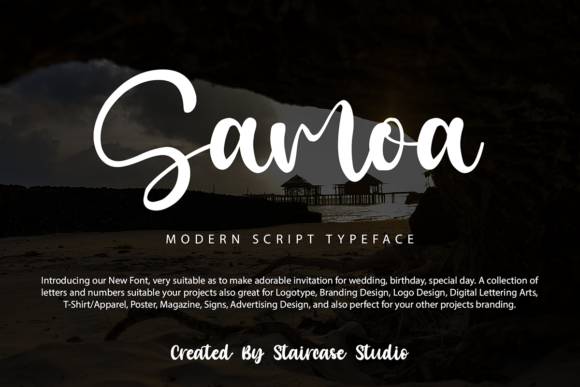
Embark on a modern script lettering journey with Samoa Font, an extraordinary typeface that breathes life into your creative projects. Say goodbye to ordinary fonts and embrace the captivating charm of Samoa, a script font that exudes sophistication and style. Crafted with meticulous attention to detail, Samoa Font features a mesmerizing collection of characters that dance and flow seamlessly, creating an enchanting visual experience.
Samoa Font is more than just a font; it's a gateway to unleashing your creative potential. Its versatile nature makes it the perfect companion for a diverse range of projects, from elegant logotypes that leave a lasting impression to branding materials that speak volumes about your brand's identity. Whether you're designing eye-catching posters, captivating magazines, or stunning signs, Samoa Font rises to the occasion, delivering remarkable results.
Step into the world of digital lettering arts and let Samoa Font guide you. Its fluidity and grace make it a dream to work with, allowing you to create intricate designs that captivate your audience. From t-shirts that make a statement to apparel that exudes individuality, Samoa Font transforms ordinary garments into expressions of creativity.
With Samoa Font, the possibilities are boundless. Dive into the world of advertising and let your designs shine. Create captivating advertisements that resonate with your audience, leaving a trail of intrigue and inspiration. Samoa Font is the key to unlocking your creative vision, turning your ideas into tangible masterpieces.